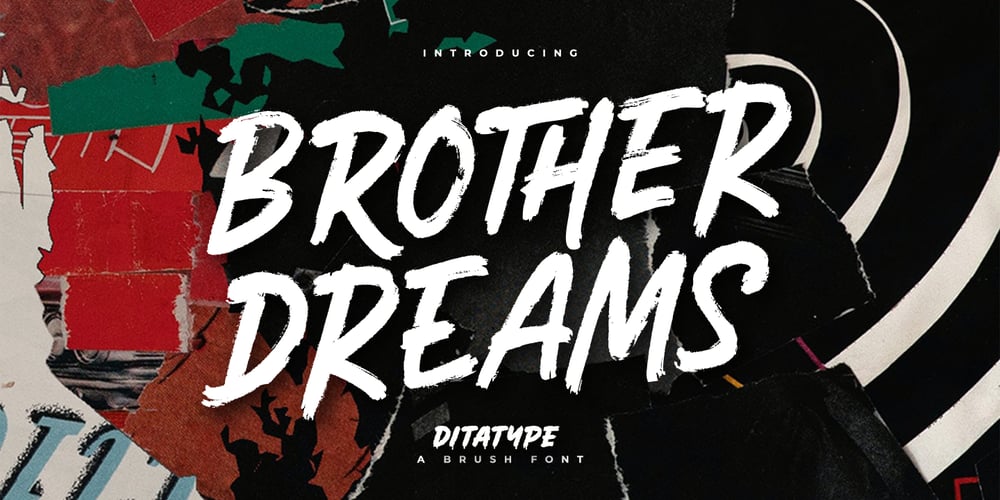
Brother Dreams Font Family was designed by Donis Miftahudin and published by Ditatype. Brother Dreams contains 1 styles and family package options. Brother Dreams is a captivating brush font that exudes a raw and artistic vibe. With its bold capitalized letterforms and ragged edges, this typeface brings a unique and rebellious touch to your designs. The defining feature of Brother Dreams lies in its rugged and ragged edges, giving the font a handcrafted and slightly distressed appearance. This font is designed with expressive brush strokes, capturing the essence of brush calligraphy. The bold capitalized letterforms command attention, making a powerful statement with their unconventional and untamed style. Inspired by the untamed spirit of artistic expression, Brother Dreams embodies a sense of creativity and authenticity. The rough and ragged edges add a touch of uniqueness and individuality to each letter, as if they were painted with passion and emotion. This font embraces imperfection and celebrates the beauty of artistic spontaneity. Each letter of Brother Dreams is meticulously crafted to maintain its boldness and legibility while embracing the rugged and ragged edges. The resulting composition is a balance of artistic expression and readability. This font allows your message to stand out with its raw energy and rebellious charm. Enjoy the various features available in this font.Features: Multilingual Supports PUA Encoded Numerals and Punctuations Brother Dreams is ideal for headlines, titles, logos, and any design that requires a lively and energetic display. Whether you’re working on posters, packaging, branding materials, or any project that needs a touch of liveliness, this font will bring a contagious sense of cheer. Find out more ways to use this font by taking a look at the font preview.Thanks for purchasing our fonts. Hopefully, you have a great time using our font. Feel free to contact us anytime for further information or when you have trouble with the font. Thanks a lot and happy designing.